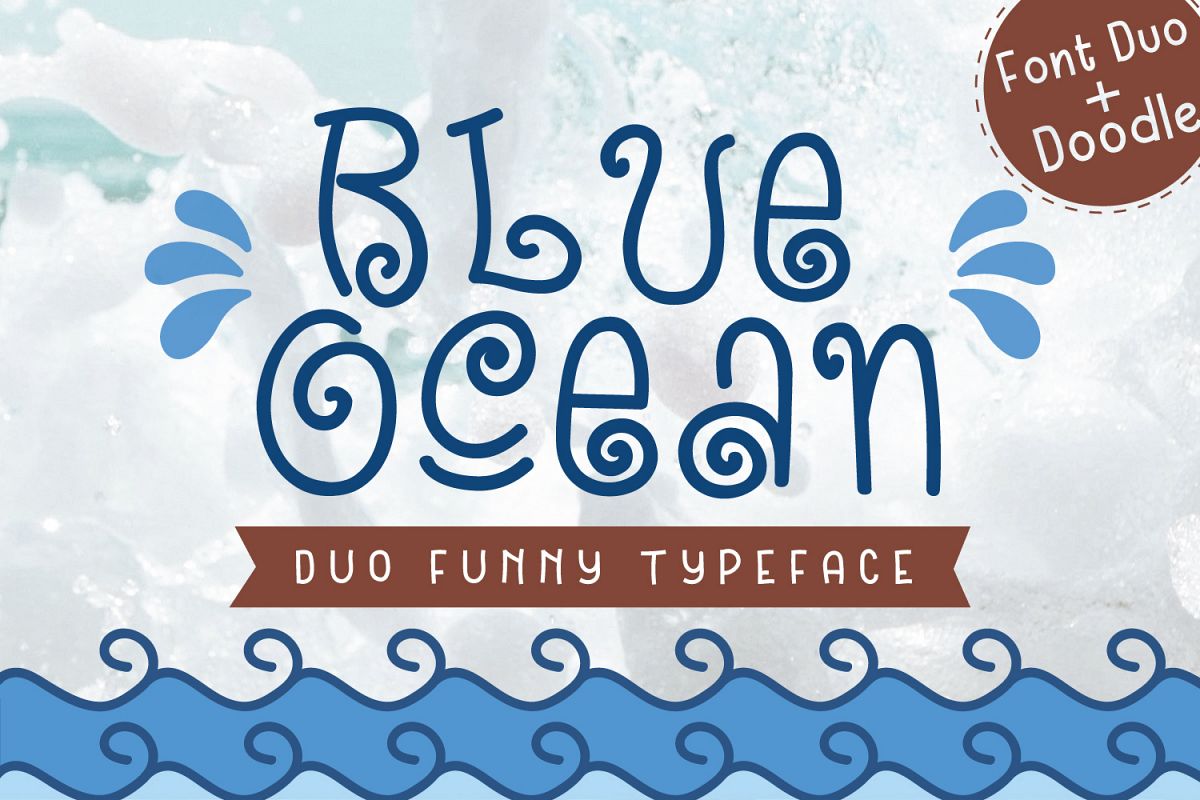
Blue Ocean - Cute and Funny Font
Introducing :
Blue Ocean Cute and Fun Font. Get ready for your projects with this cute and funny font. Blue Ocean is a font that can be used for any design related to baby, kids and much more. It also comes with cute doodle that can be used for your projects.